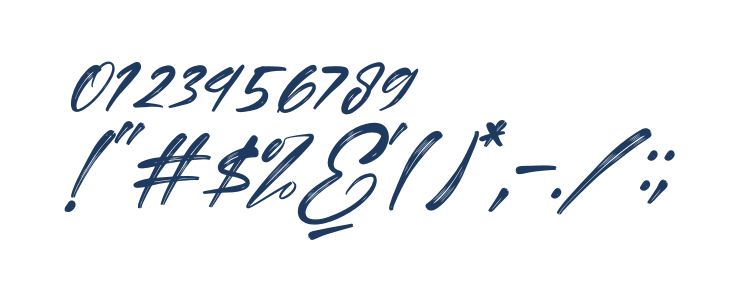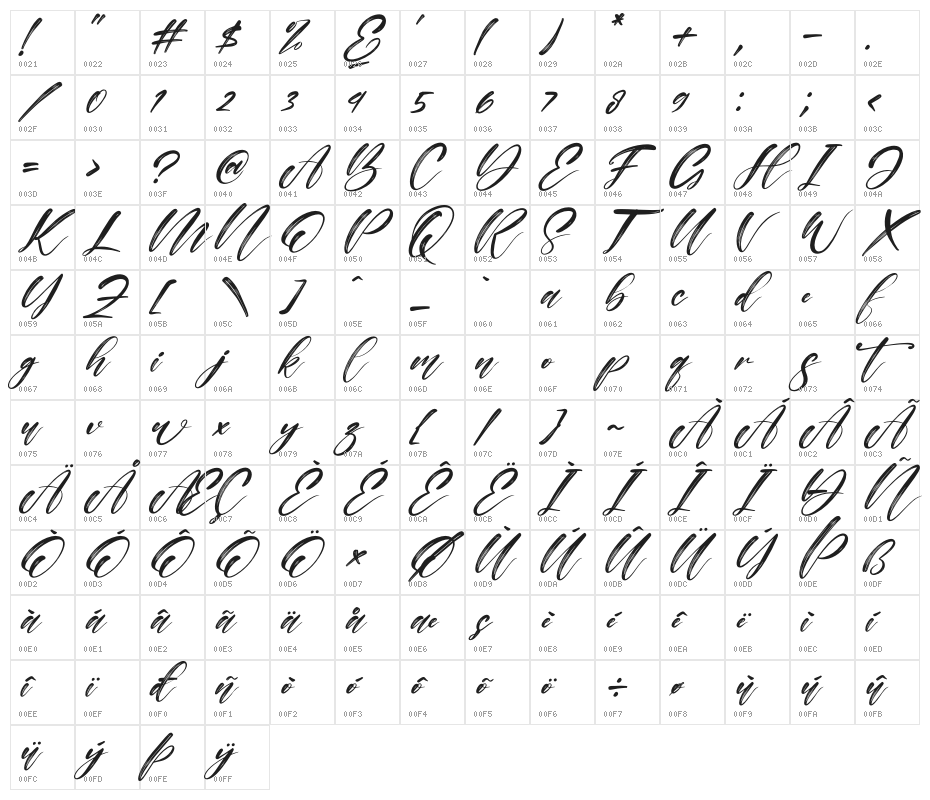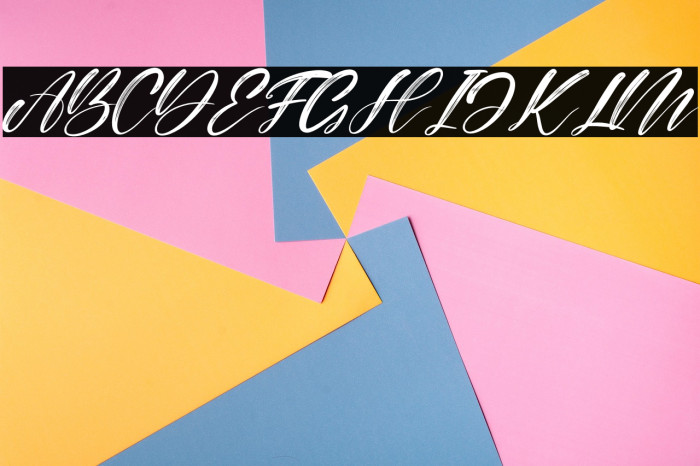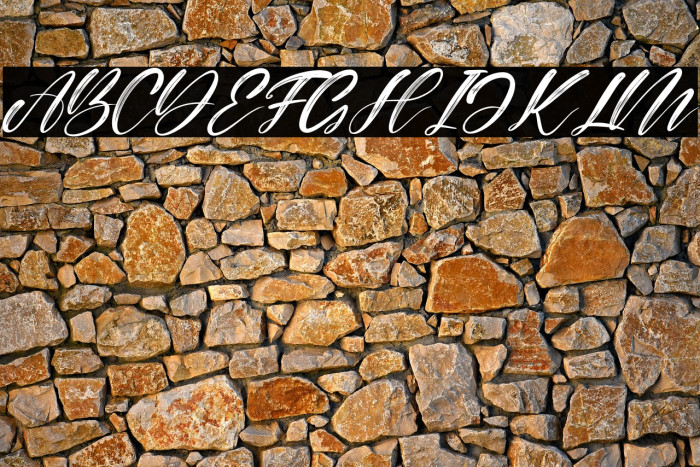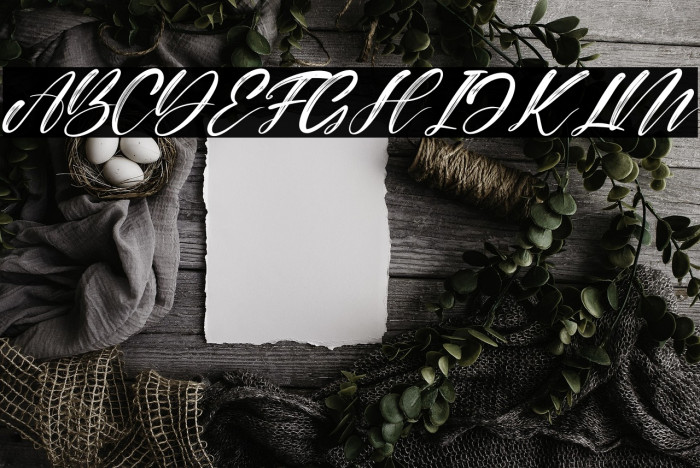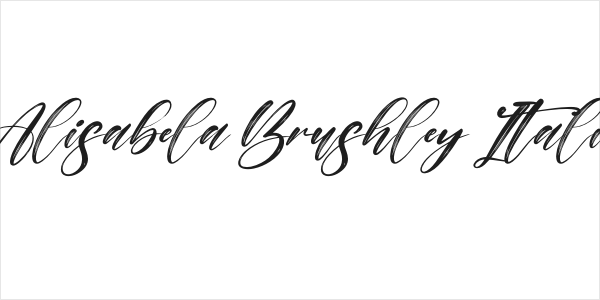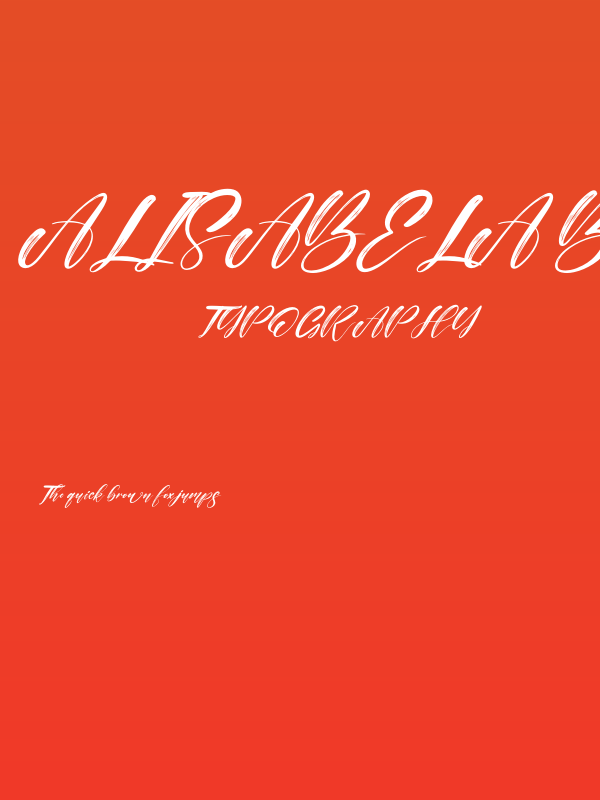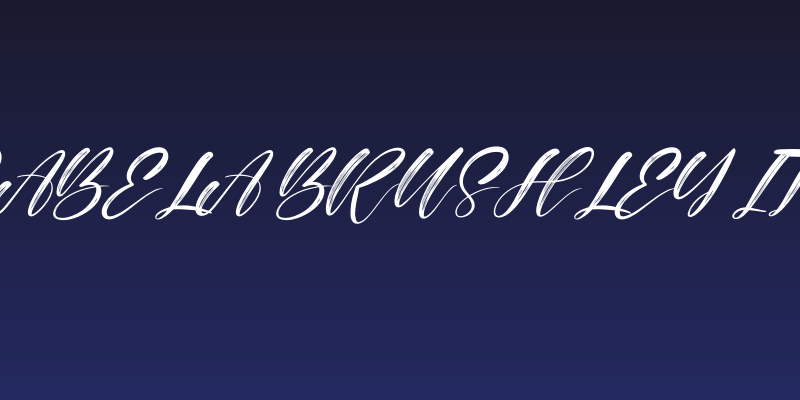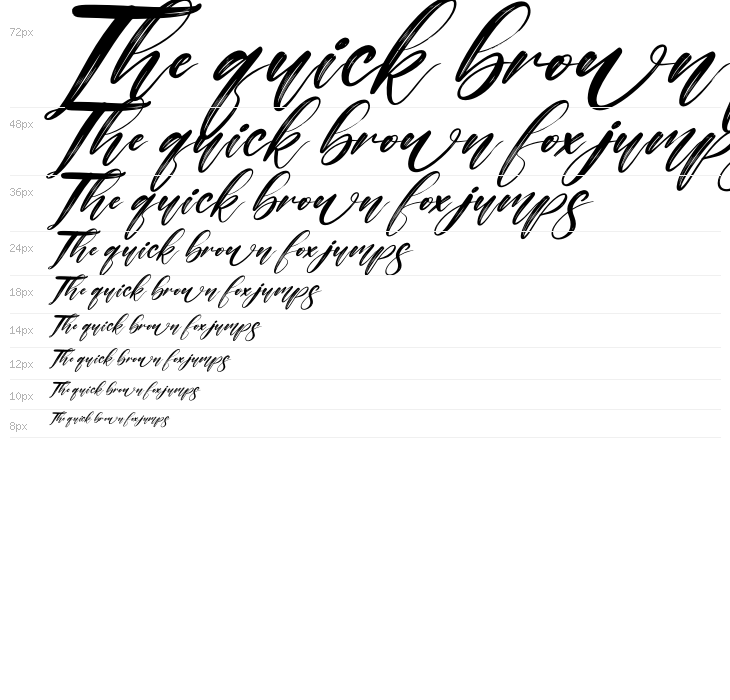
Alisabela Brushley Italic Font
Alisabela Brushley Italic Description
This font exudes a dynamic and artistic flair, characterized by its fluid, brush-like strokes that convey a sense of movement and elegance. The letters are connected in a cursive style, with each character flowing seamlessly into the next, creating a harmonious and continuous script. The uppercase letters are bold and prominent, while the lowercase letters maintain a consistent rhythm and balance. The numbers and special characters are crafted with the same attention to detail, ensuring a cohesive look across all glyphs. This font is perfect for projects that require a personal and expressive touch, such as invitations, branding, and creative designs.
| Use Case | Logos, Invitations, Artistic designs |
| Proposed Projects | Ideal for wedding invitations, branding, logos, and artistic projects. |